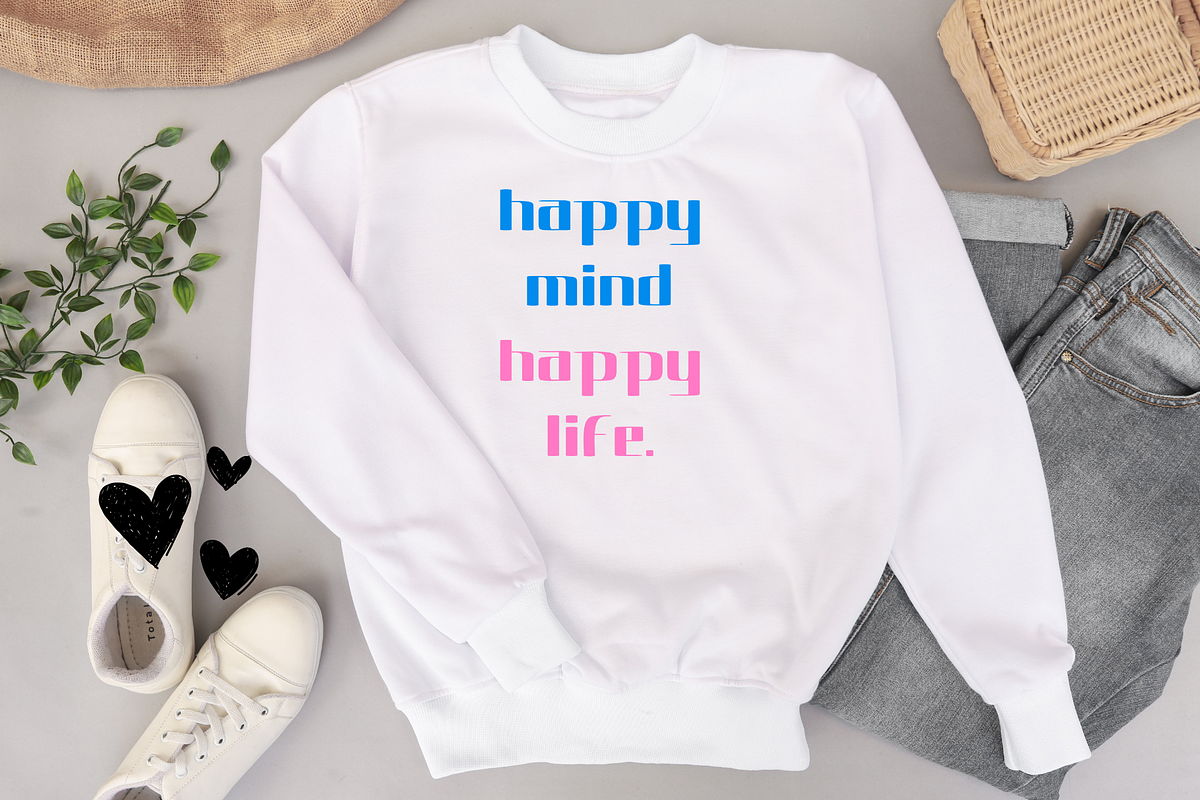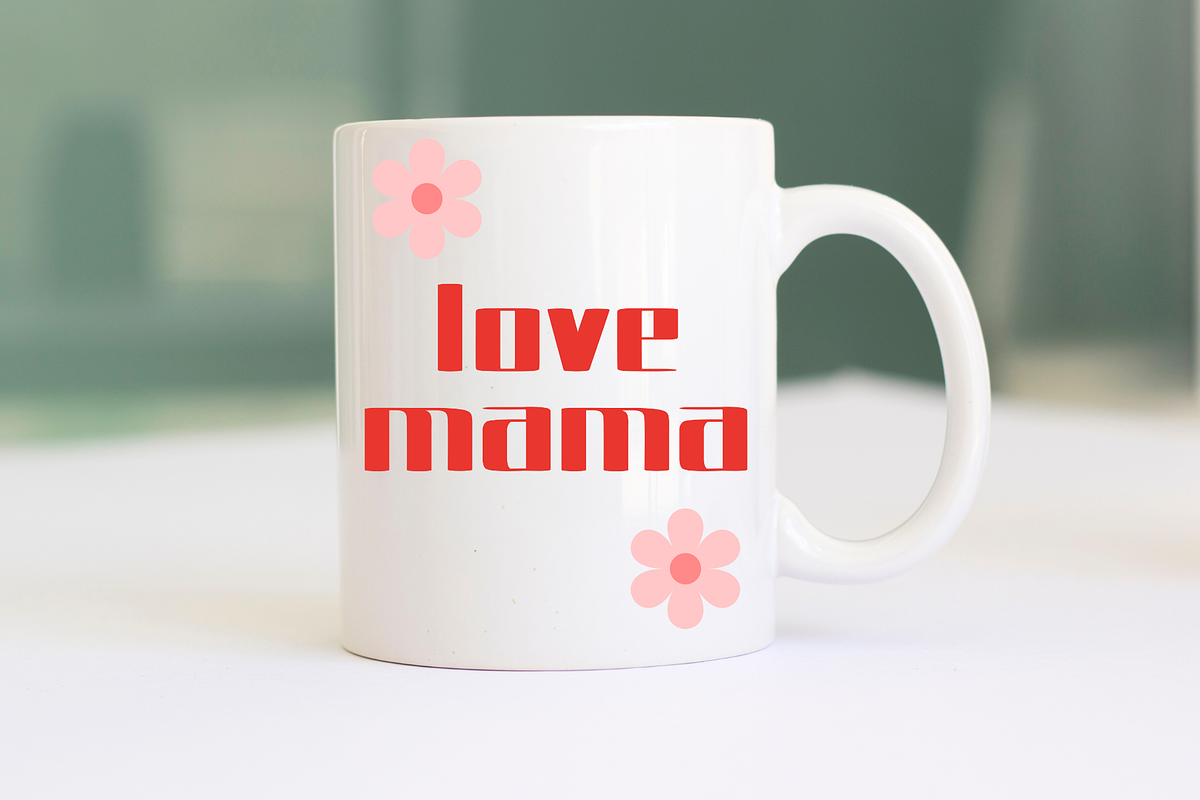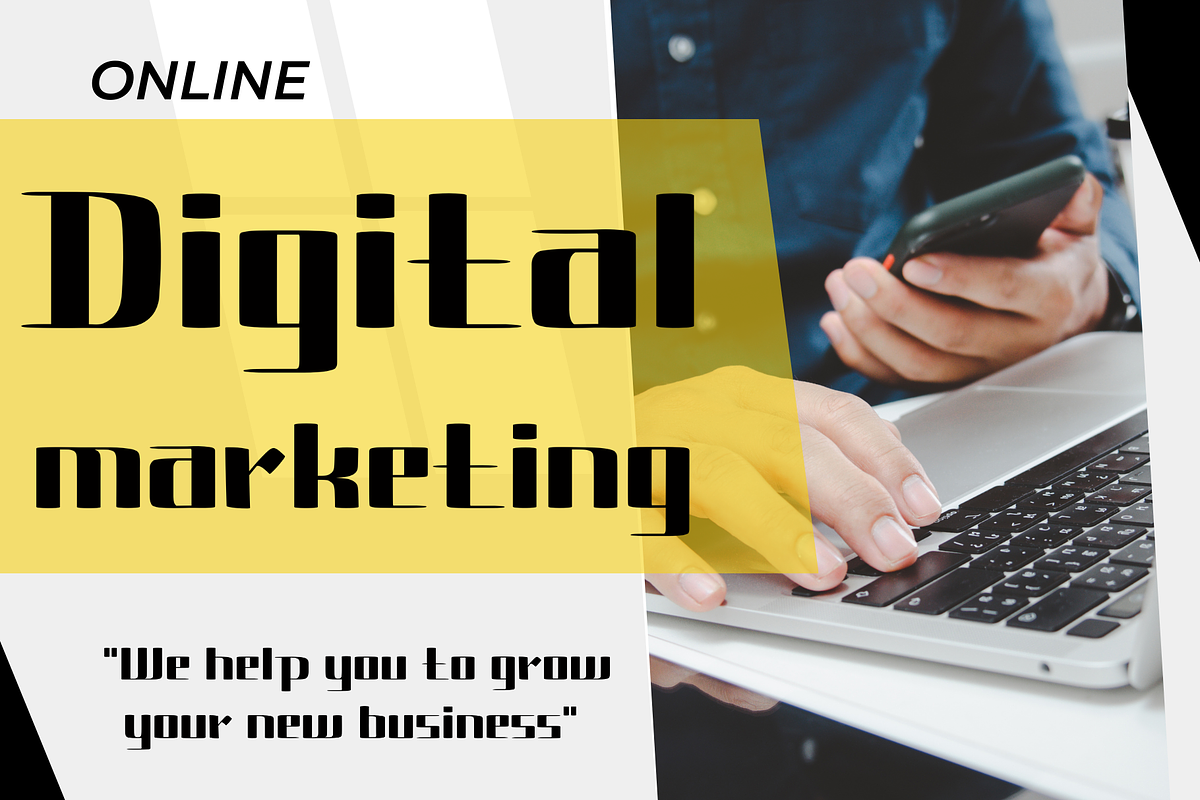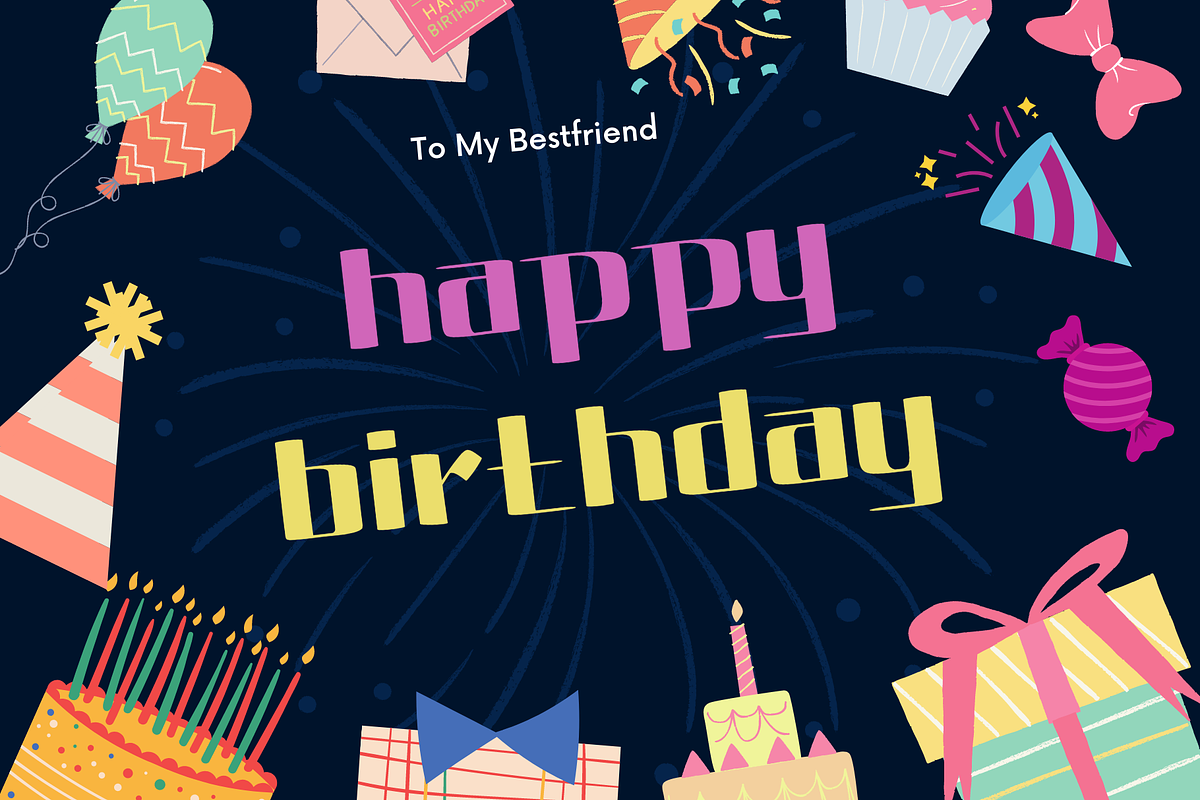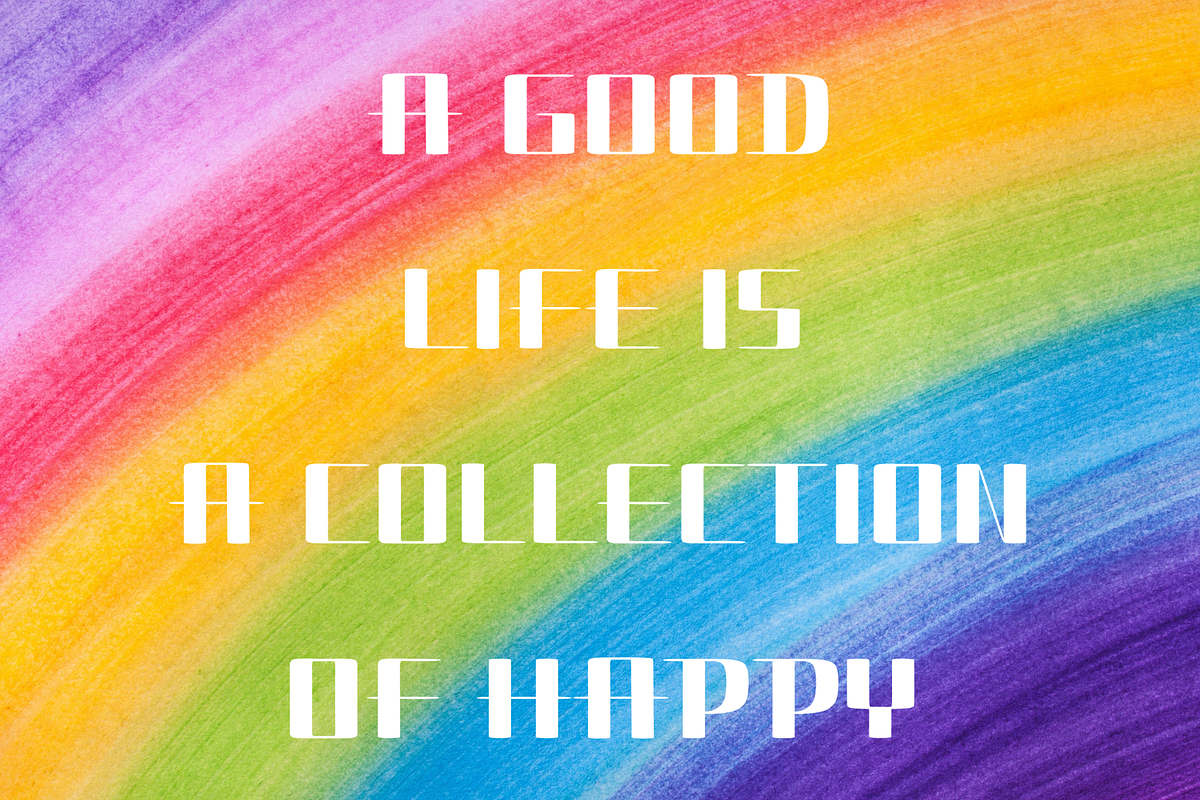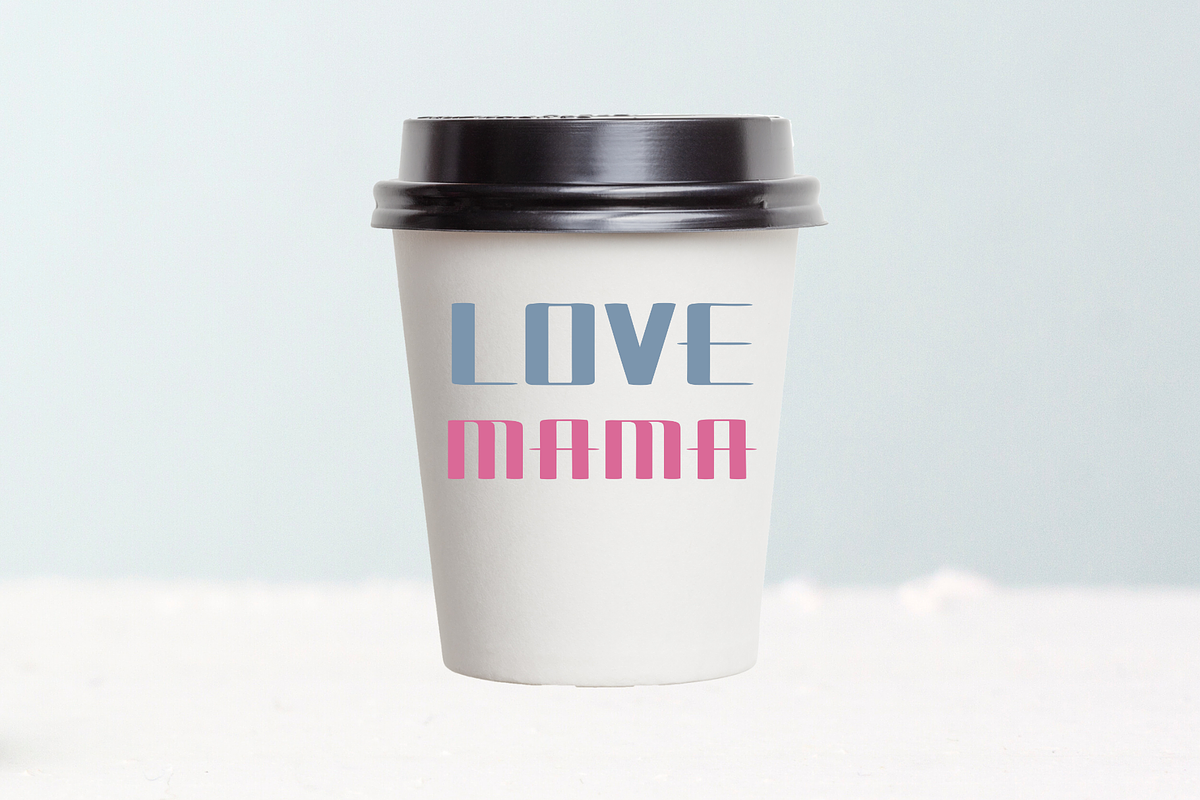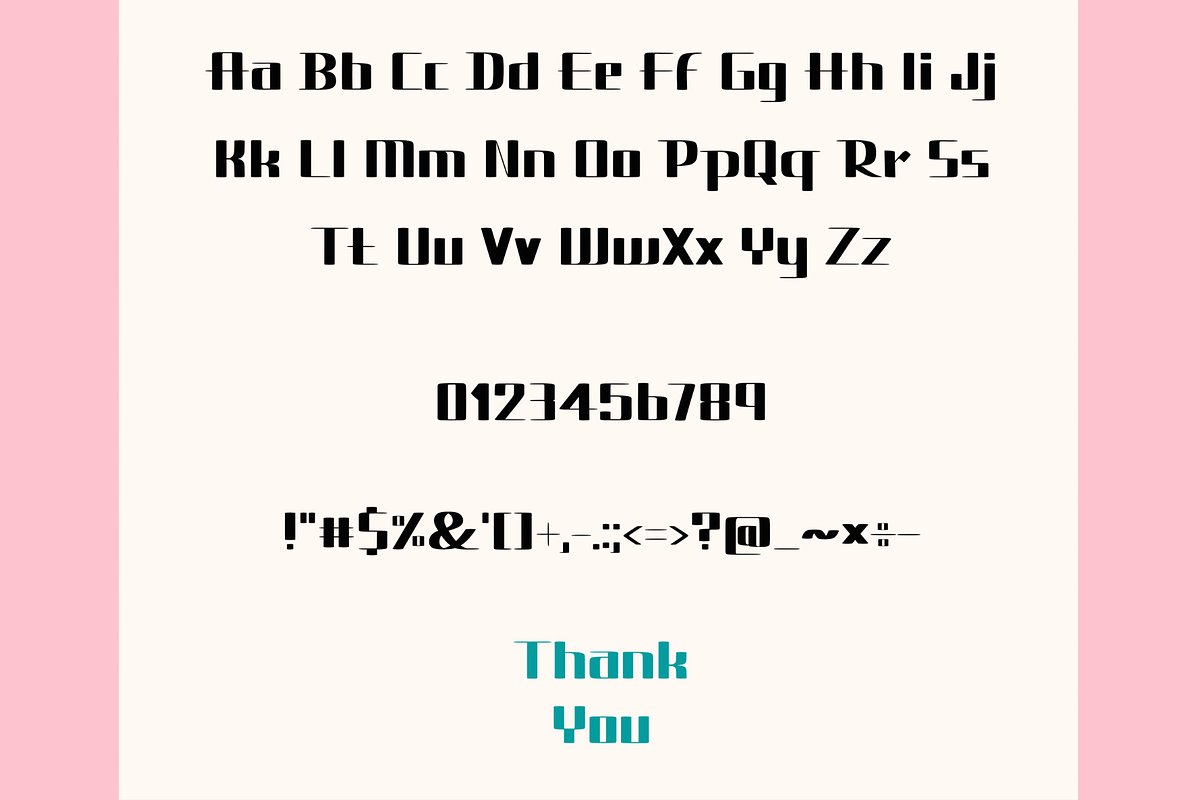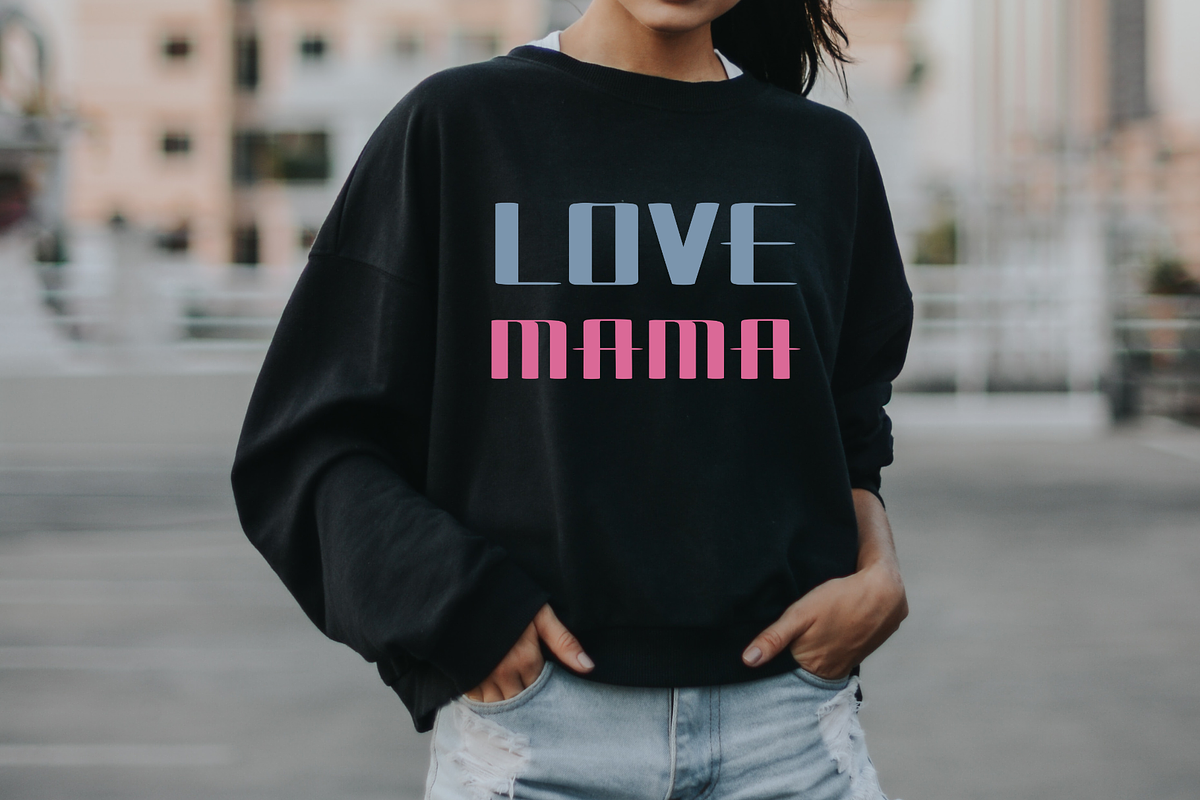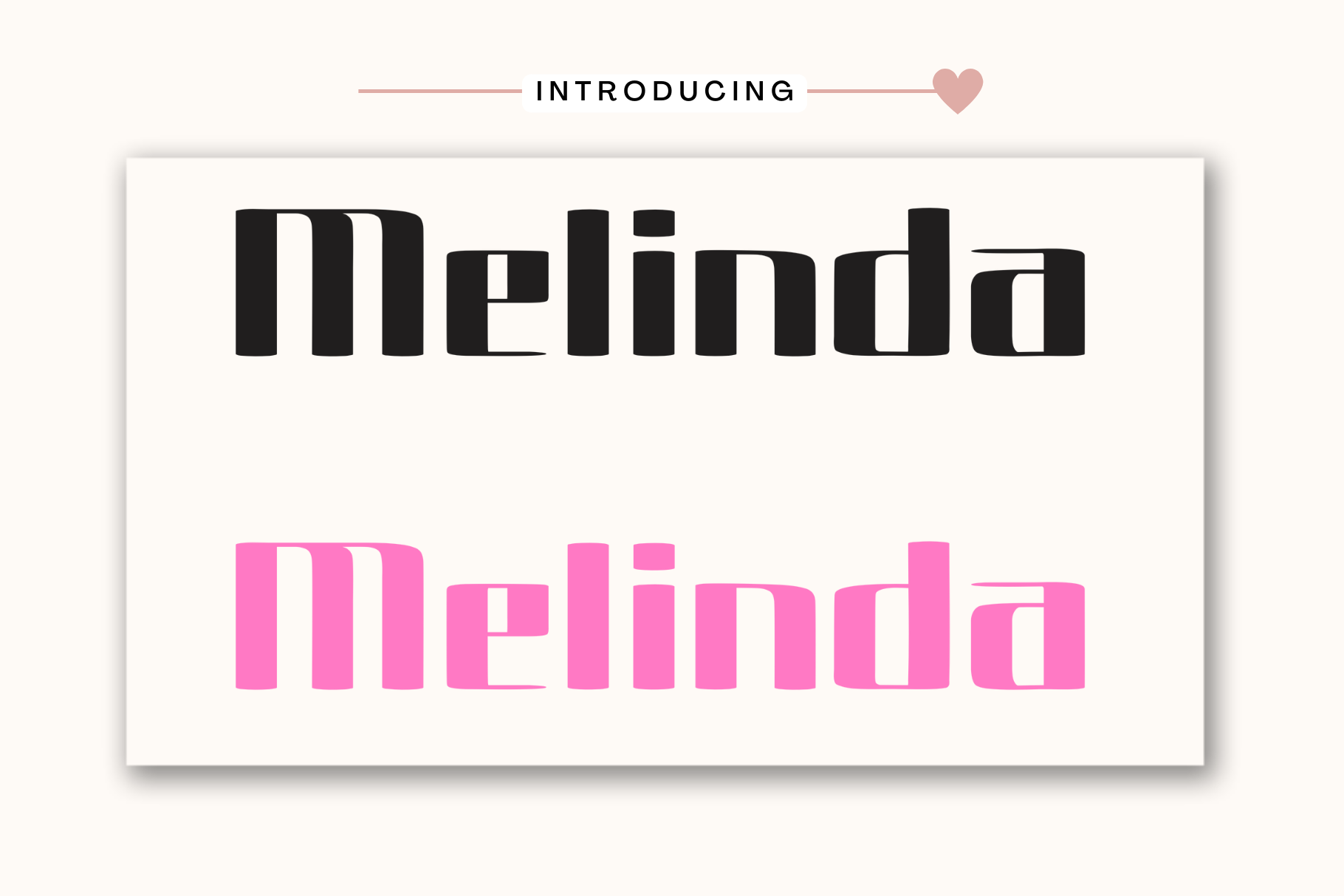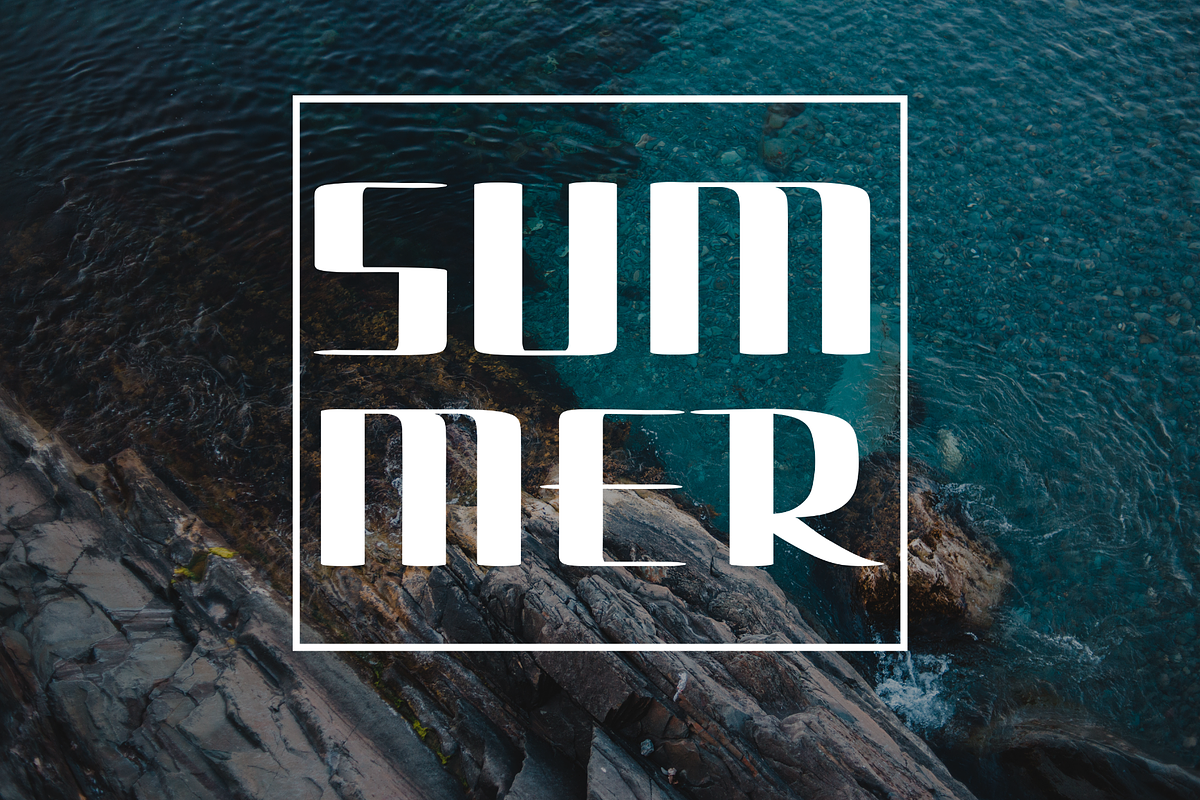
Melinda Font
Melinda is a beautiful and refined serif font. It has a classy, elegant, and modern look that can be used for logos, branding, invitations, stationery, wedding designs, social media posts, and much more!